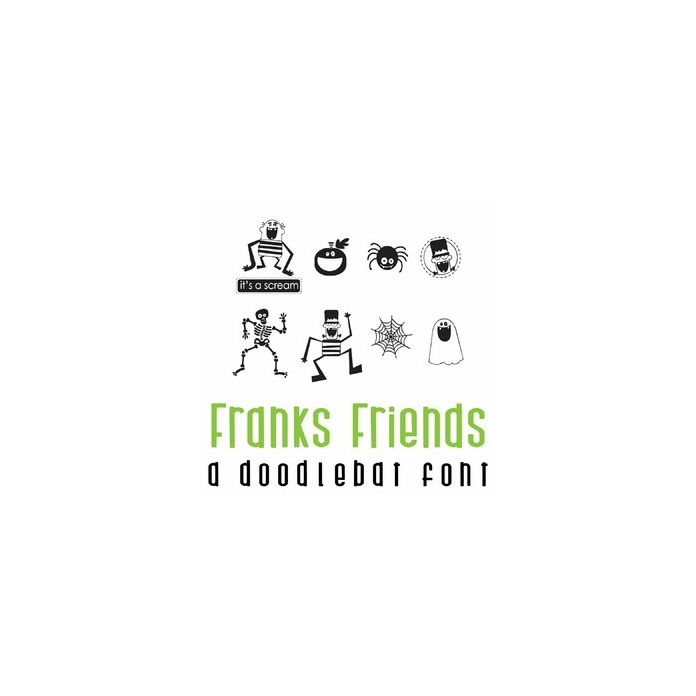
This fun doodlebat font features 36 adorable Monster imagery A-Z and 0-9. Perfect for cards, gifts, decor, crafts, scrap book pages, planner stickers and more!